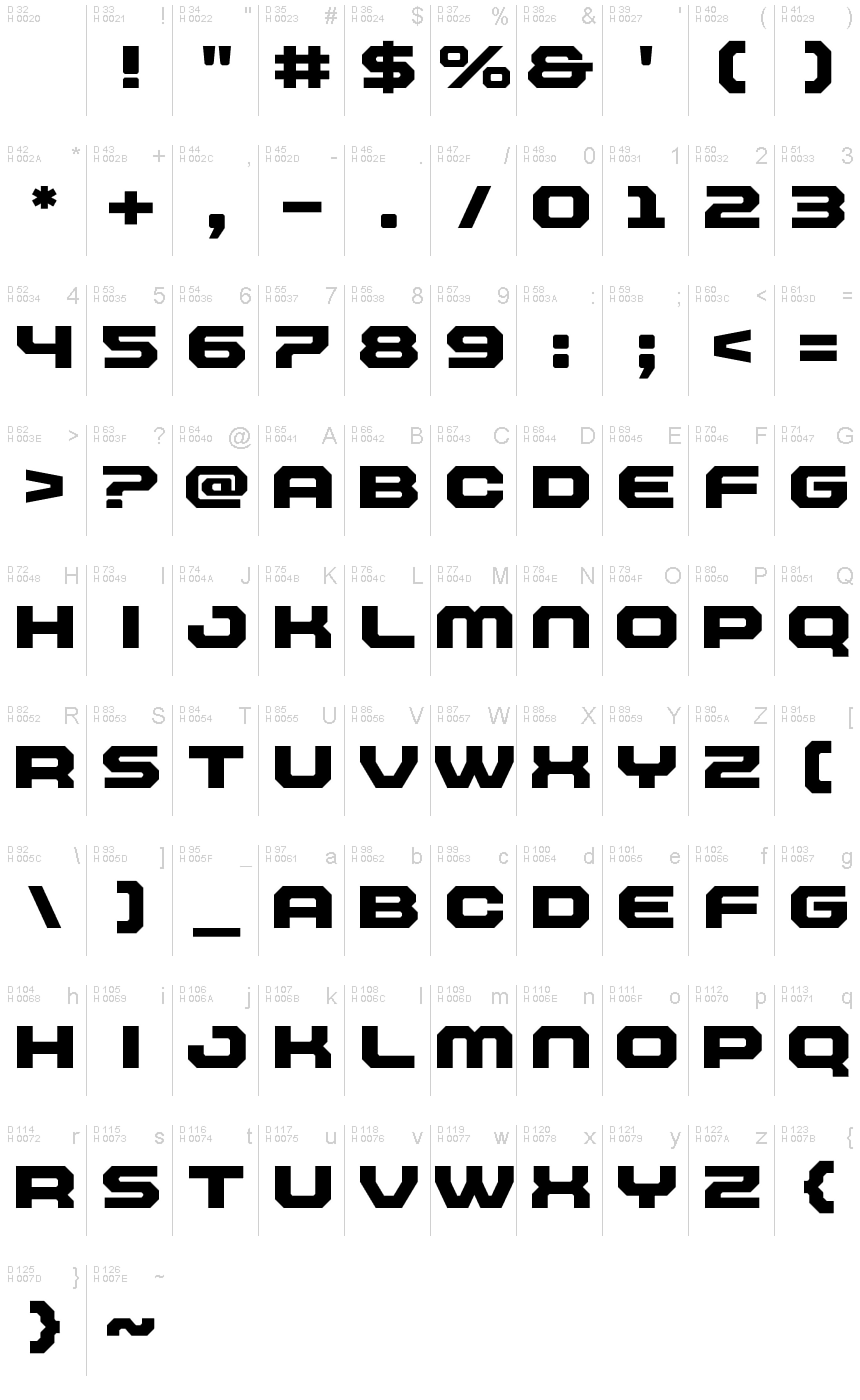
Powermax Bold
Powermax Bold font is a bold techno typeface designed by Typologic.
POWERMAX is free for personal use font made for needs such as logos, posters, or main texts that require a loud and powerful feel.